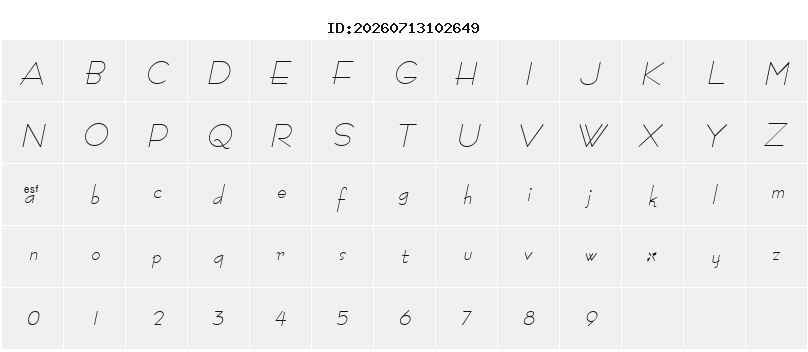
Ramose Preview
• Font Name: Ramose
• Font Style: Oblique
• Font ID: Macromedia Fontographer 4.1 Ramose Oblique
• Full Font Name: Ramose Oblique
• Version: Macromedia Fontographer 4.1 7/8/96
• PostScript Name: RamoseOblique
• Character Count: 212
About Ramose.ttf
Ramose.ttf is a modern, elegant sans-serif font designed for ultimate readability and visual harmony. Perfect for branding, headlines, web design, and print materials.